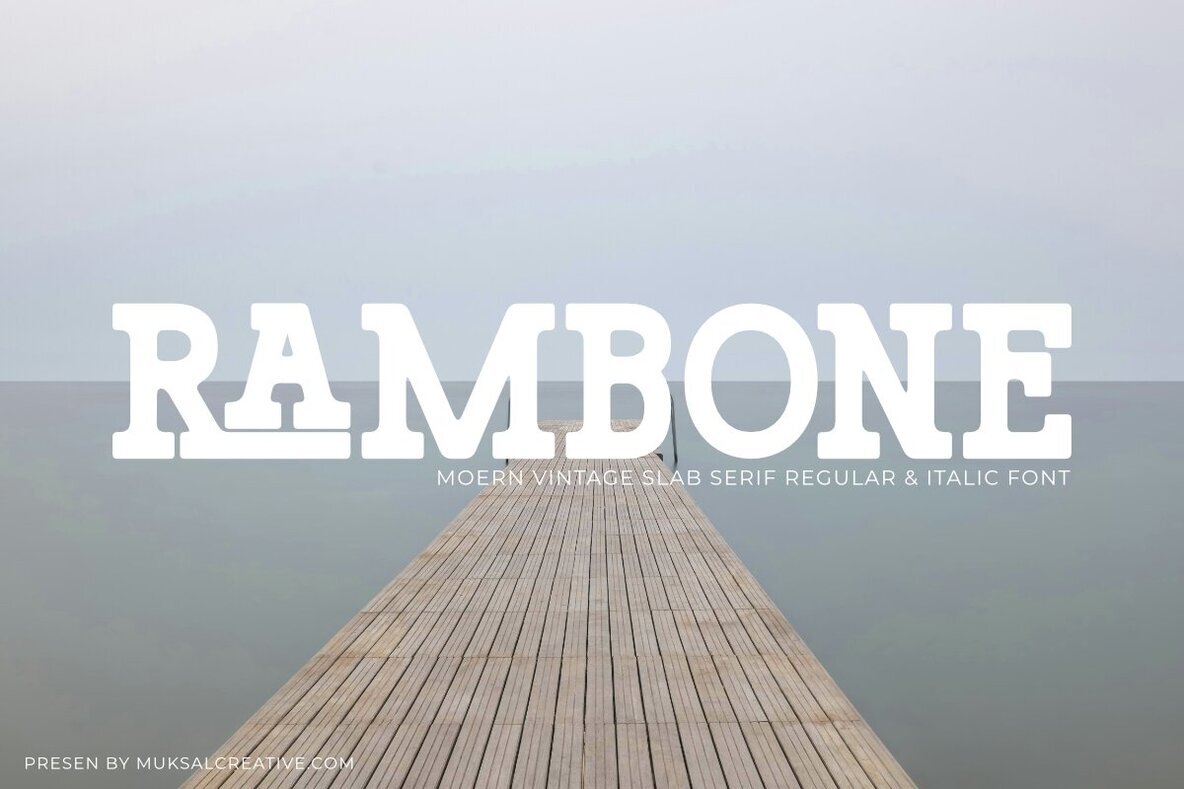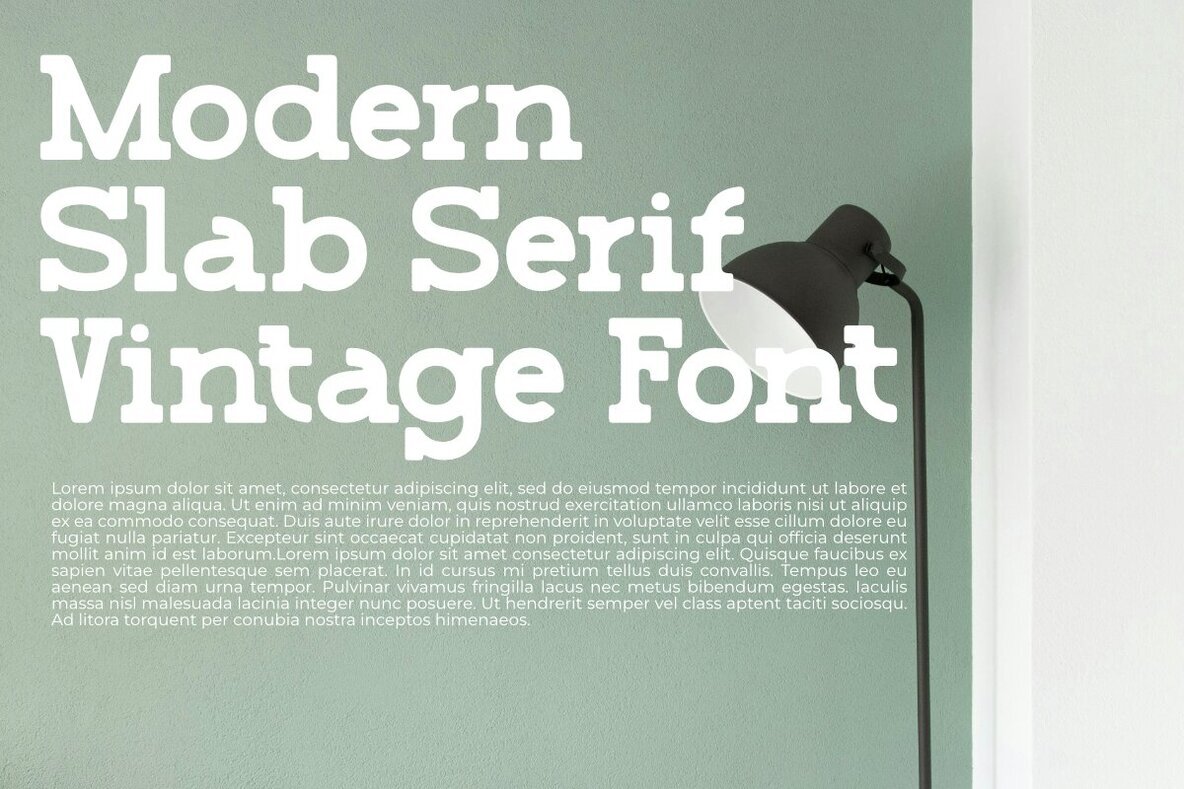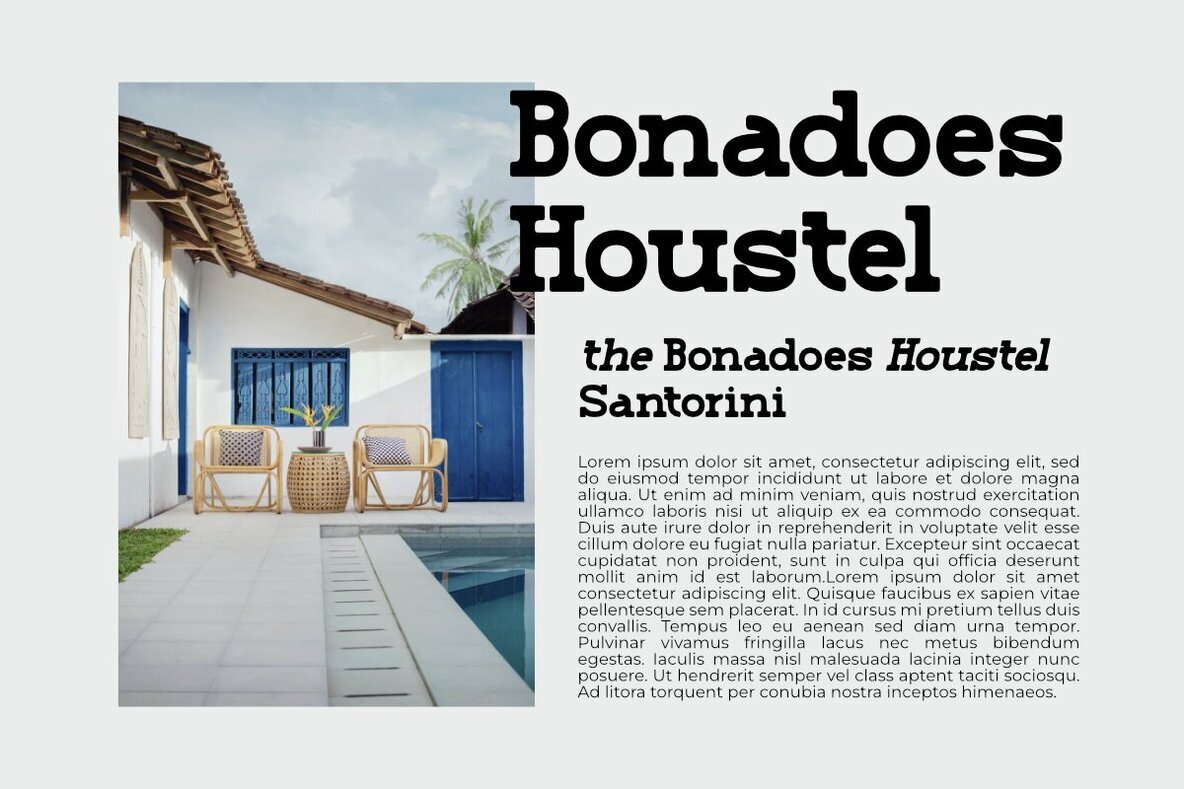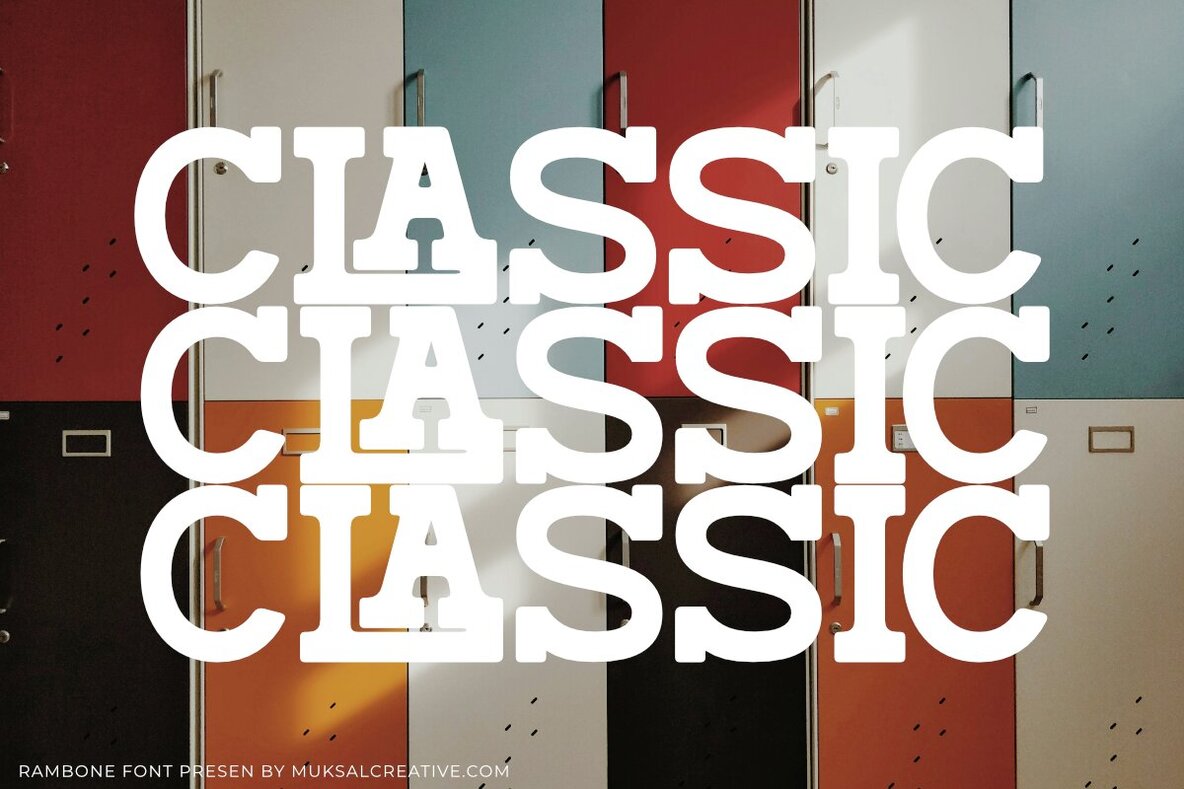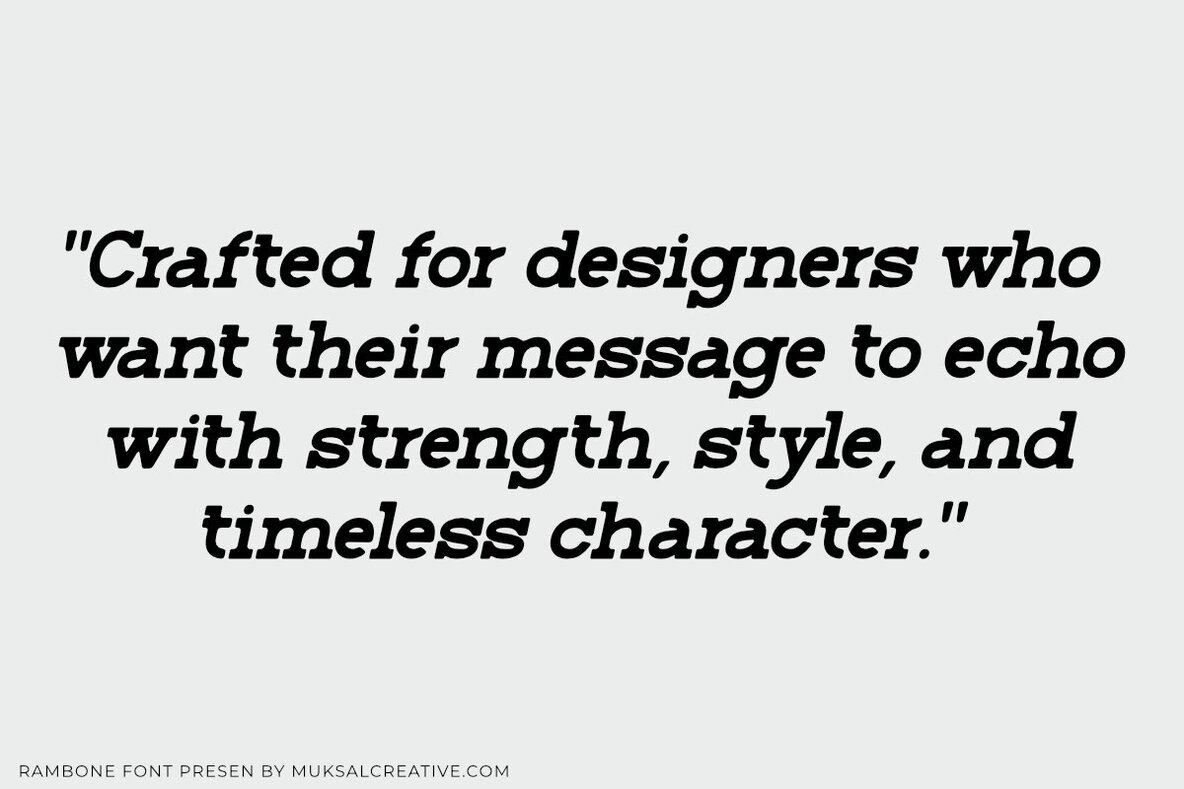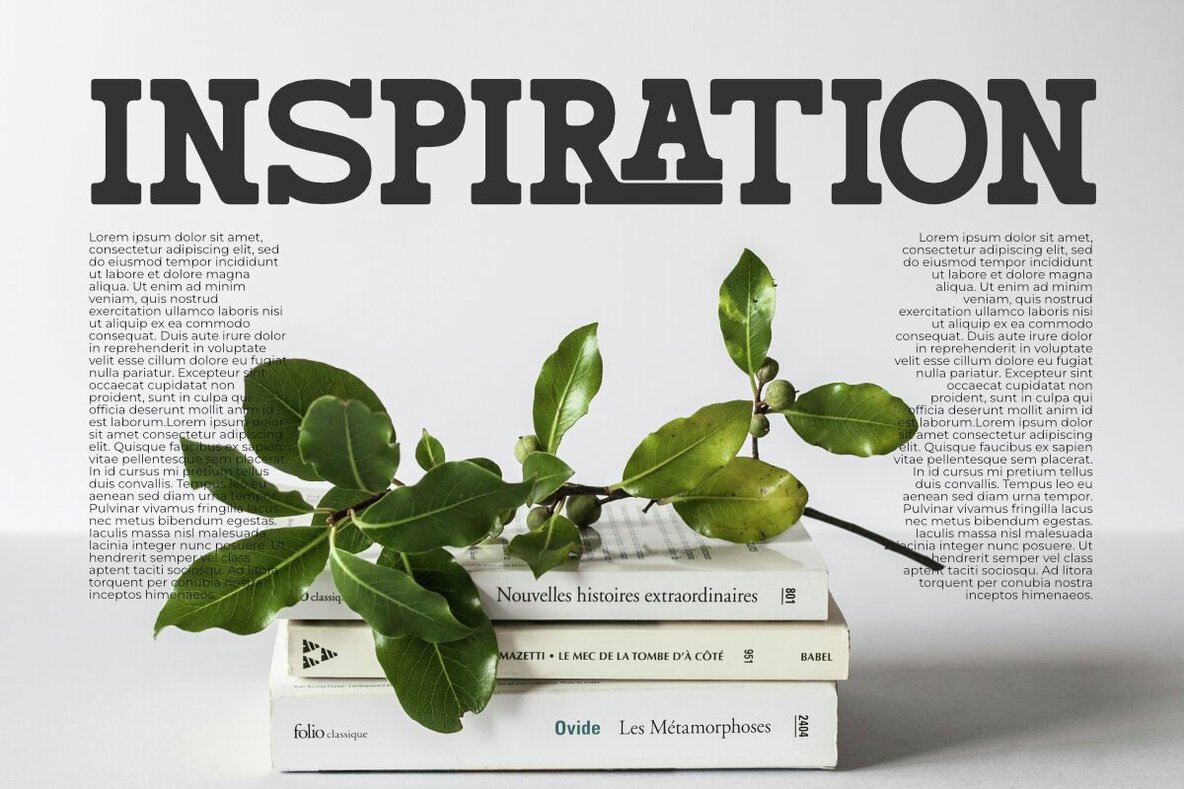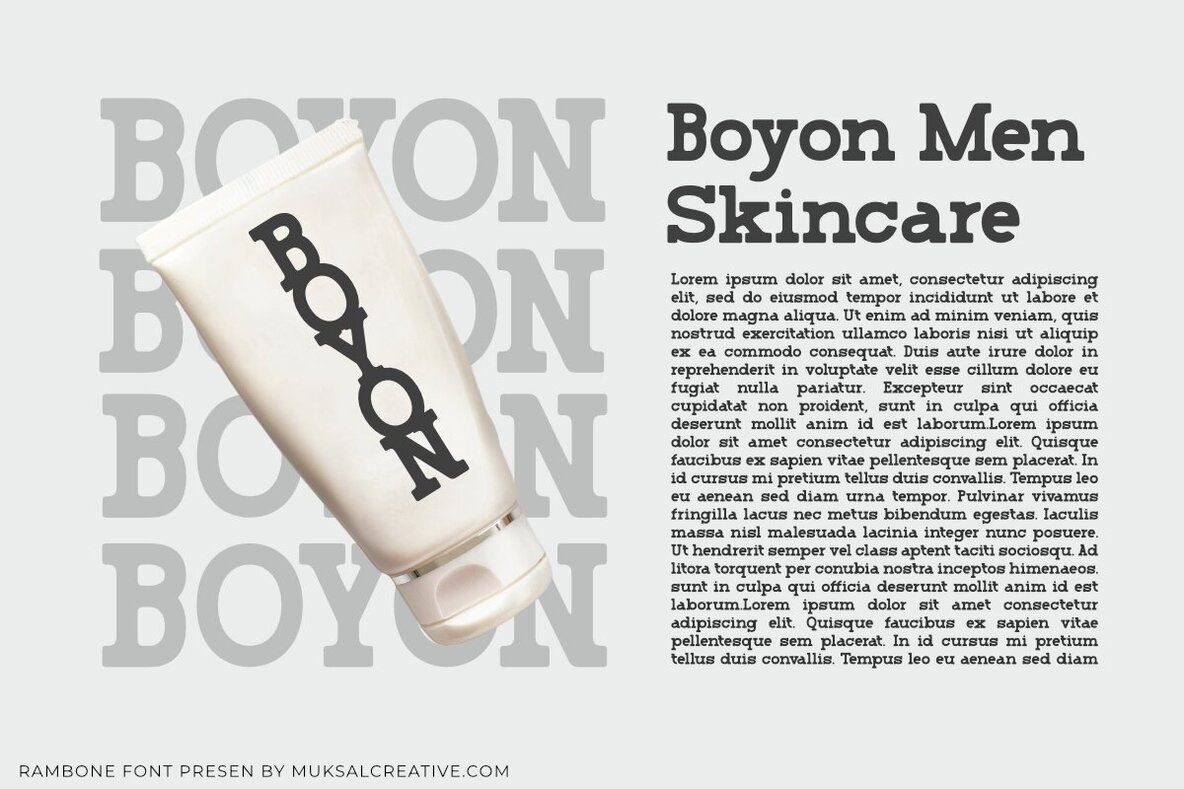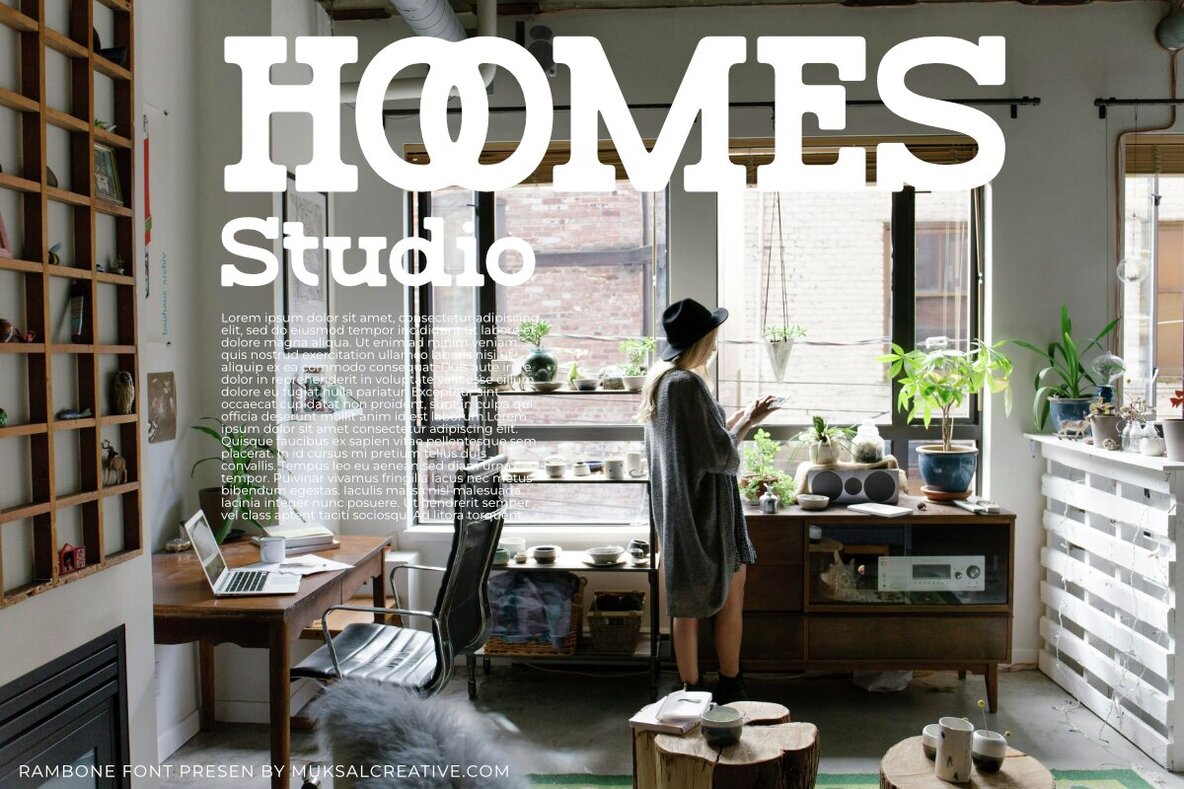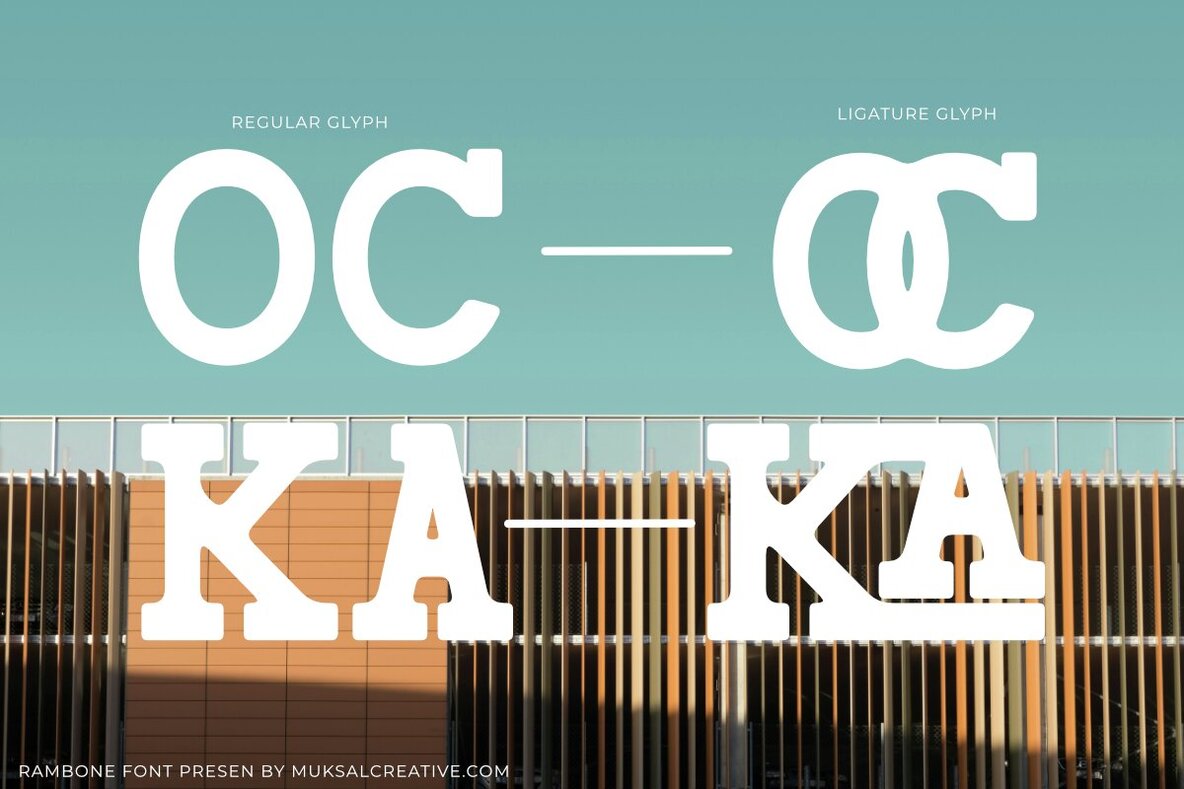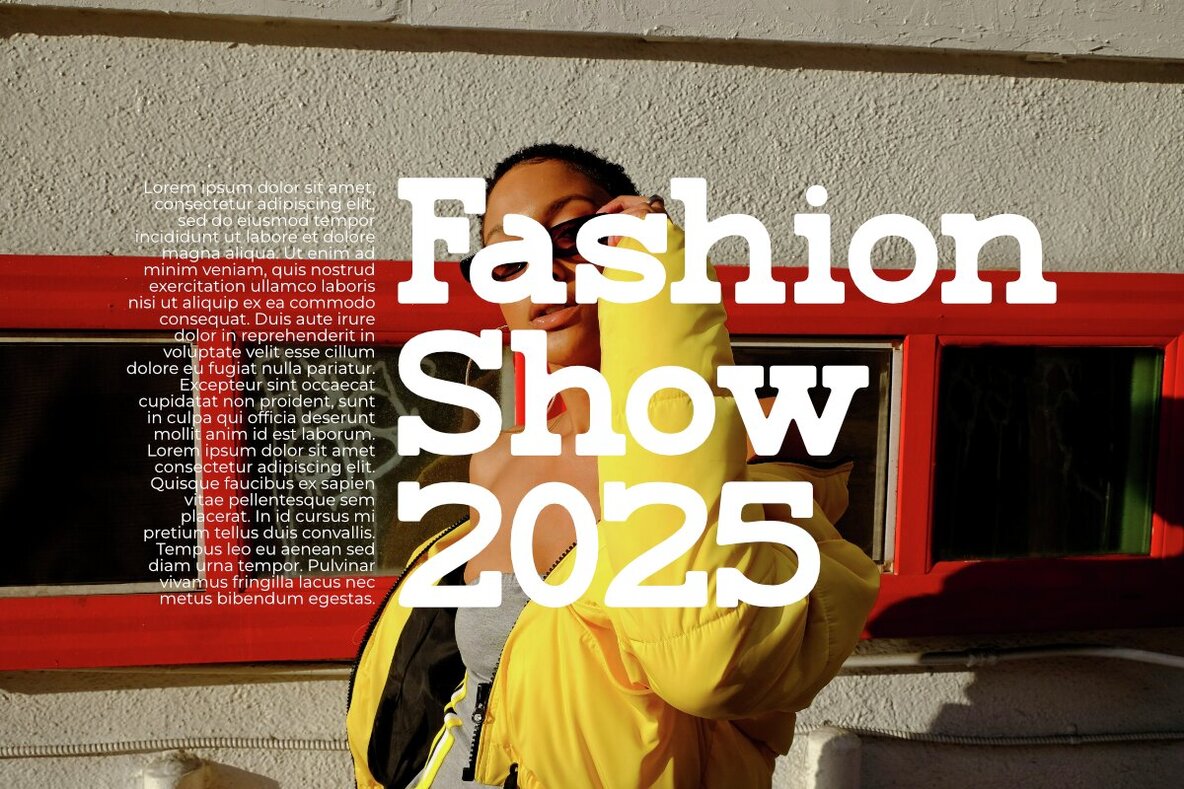
Rambone Font
Unleash the distinctive style of Rambone, a bold slab serif font that emanates confidence and strength. Drawing inspiration from classic vintage typefaces, yet infused with a contemporary flair, Rambone is perfectly crafted to catch the eye across a variety of visual projects. Whether enhancing your branding, amplifying packaging designs, or giving voice to editorial headlines and powerful posters, this font ensures your message resonates loudly. Available in Regular and Italic styles, Rambone provides versatility for creating striking typographic compositions. Each letterform is meticulously designed with a robust structure and assertive presence, ideal for projects that demand attention. Its solid curves and commanding stance offer both style and substance.Rambone: A Distinctive Slab Serif